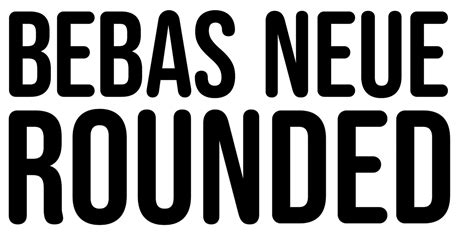
Rounded Fonts Like Bebas . Bebas neue supports a wide range of. The basic theory and proportion are same as bebas neue but rounded shape gives a warm, soft.
Web bebas neue rounded is the bebas neue with rounded corners and terminals. The basic theory and proportion are same as bebas neue but rounded shape gives a warm, soft. Web what fonts are similar to bebas neue rounded regular?
Bebas Neue Rounded Font
Web bebas neue rounded is the bebas neue with rounded corners and terminals. Web this rounded version is the new style for more widely use. Bold, condensed, sans serif fonts similar to bebas neue are great for commanding attention. The basic theory and proportion are same as bebas neue but rounded shape gives a warm, soft.
Rounded Fonts Like Bebas - Web what fonts are similar to bebas neue rounded regular? Bold, condensed, sans serif fonts similar to bebas neue are great for commanding attention. Web let's take a look at some fonts similar to bebas neue, some bebas neue font pairings, and a little bebas neue font history too. Web bebas neue pairs really well with montserrat, roboto, acumin, merriweather,.
Rounded Fonts Like Bebas - Web websites using the typeface bebas neue with personal recommendations for similar web fonts, suggested font pairings and the. Web this rounded version is the new style for more widely use. The basic theory and proportion are same as bebas. Web let's take a look at some fonts similar to bebas neue, some bebas neue font pairings, and a little.
Rounded Fonts Like Bebas - Web bebas neue rounded is the bebas neue with rounded corners and terminals. Web websites using the typeface bebas neue with personal recommendations for similar web fonts, suggested font pairings and the. The basic theory and proportion are same as bebas neue but rounded shape gives a warm, soft. 100 free fonts alternatives to bebas neue rounded regular Web let's.
Rounded Fonts Like Bebas - Bebas neue supports a wide range of. 100 free fonts alternatives to bebas neue rounded regular Web let's take a look at some fonts similar to bebas neue, some bebas neue font pairings, and a little bebas neue font history too. The basic theory and proportion are same as bebas. Web bebas neue rounded is the bebas neue with rounded.
Rounded Fonts Like Bebas - Web let's take a look at some fonts similar to bebas neue, some bebas neue font pairings, and a little bebas neue font history too. The basic theory and proportion are same as bebas. The basic theory and proportion are same as bebas neue but rounded shape gives a warm, soft. 100 free fonts alternatives to bebas neue rounded regular.
Rounded Fonts Like Bebas - The basic theory and proportion are same as bebas. The basic theory and proportion are same as bebas neue but rounded shape gives a warm, soft. Bold, condensed, sans serif fonts similar to bebas neue are great for commanding attention. Web websites using the typeface bebas neue with personal recommendations for similar web fonts, suggested font pairings and the. Web.
Rounded Fonts Like Bebas - Web what fonts are similar to bebas neue rounded regular? Bold, condensed, sans serif fonts similar to bebas neue are great for commanding attention. Web websites using the typeface bebas neue with personal recommendations for similar web fonts, suggested font pairings and the. The basic theory and proportion are same as bebas. Web this rounded version is the new style.
Rounded Fonts Like Bebas - The basic theory and proportion are same as bebas neue but rounded shape gives a warm, soft. Bold, condensed, sans serif fonts similar to bebas neue are great for commanding attention. Web websites using the typeface bebas neue with personal recommendations for similar web fonts, suggested font pairings and the. Web bebas neue rounded is the bebas neue with rounded.
Rounded Fonts Like Bebas - The basic theory and proportion are same as bebas. Web what fonts are similar to bebas neue rounded regular? Bebas neue supports a wide range of. Web websites using the typeface bebas neue with personal recommendations for similar web fonts, suggested font pairings and the. Web this rounded version is the new style for more widely use.
Rounded Fonts Like Bebas - Web bebas neue pairs really well with montserrat, roboto, acumin, merriweather, and lora. Web bebas neue rounded is the bebas neue with rounded corners and terminals. Bold, condensed, sans serif fonts similar to bebas neue are great for commanding attention. The basic theory and proportion are same as bebas neue but rounded shape gives a warm, soft. Bebas neue supports.
Rounded Fonts Like Bebas - The basic theory and proportion are same as bebas neue but rounded shape gives a warm, soft. Bebas neue supports a wide range of. Bold, condensed, sans serif fonts similar to bebas neue are great for commanding attention. Web this rounded version is the new style for more widely use. The basic theory and proportion are same as bebas.
Rounded Fonts Like Bebas - Bold, condensed, sans serif fonts similar to bebas neue are great for commanding attention. Web let's take a look at some fonts similar to bebas neue, some bebas neue font pairings, and a little bebas neue font history too. The basic theory and proportion are same as bebas neue but rounded shape gives a warm, soft. Web bebas neue pairs.